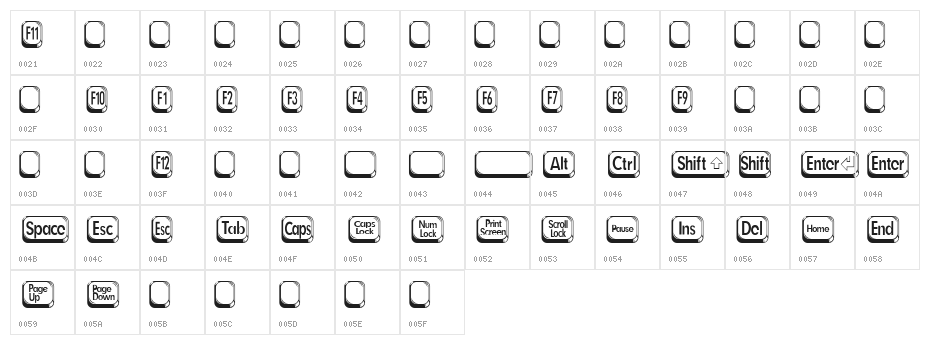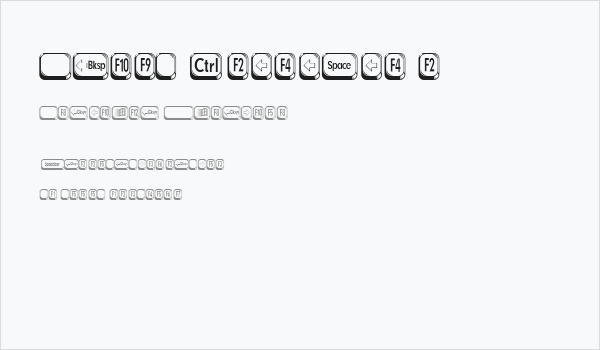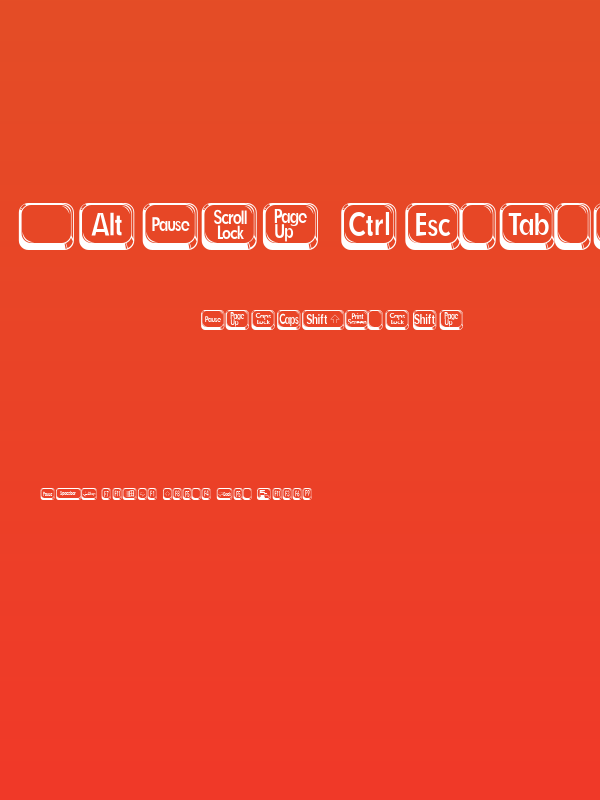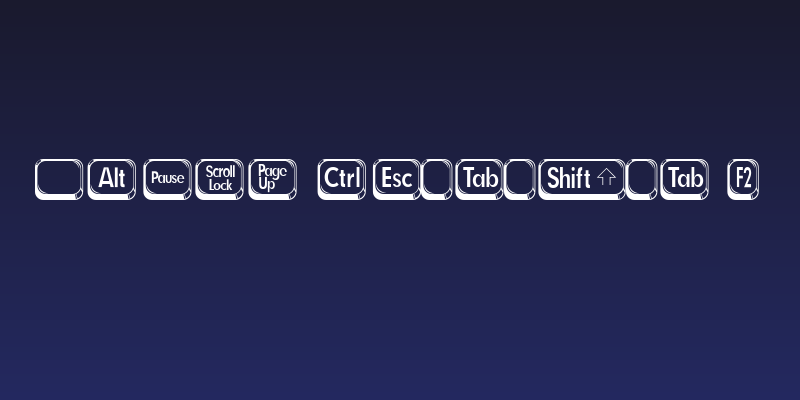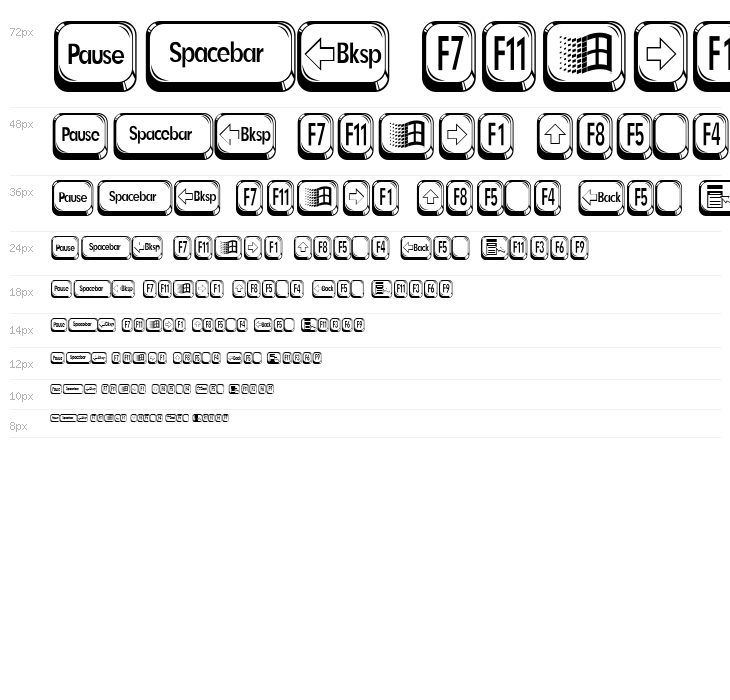
Betsy Flanagan 2 Font
Betsy Flanagan 2 Description
This image features a decorative font style that mimics the appearance of keys on a vintage typewriter or keyboard. Each character is enclosed in a rounded rectangle with a three-dimensional effect, giving the impression of physical keys. The font is bold and clear, with a strong emphasis on readability. The characters are uniformly spaced and have a consistent stroke width, contributing to a cohesive and structured appearance. The style is reminiscent of retro technology, making it suitable for designs that aim to evoke a sense of nostalgia or vintage charm. The overall aesthetic is playful yet functional, ideal for creative projects that require a unique and eye-catching typeface.
| Use Case | Logos, Posters, Creative Projects |
| Proposed Projects | This font is perfect for retro-themed designs, tech-related branding, posters, and creative projects that require a nostalgic touch. |